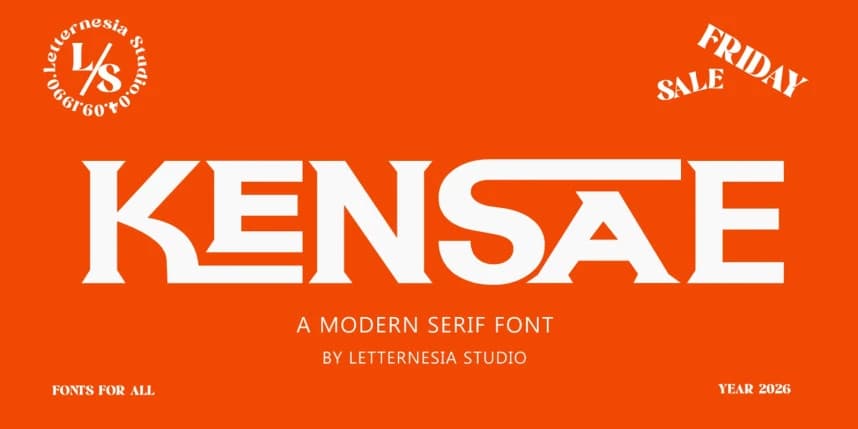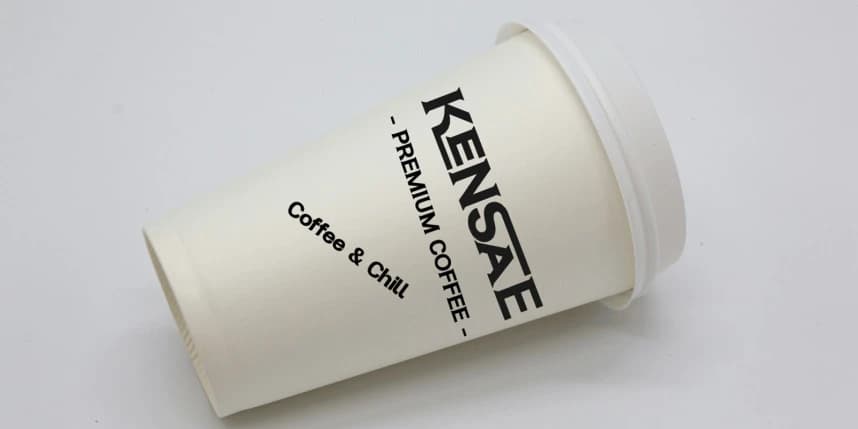
KENSAE Font is a bold and stylish display font designed to make a strong visual impact. With its unique character shapes and modern aesthetic, this typeface is perfect for eye-catching designs that need personality and clarity.